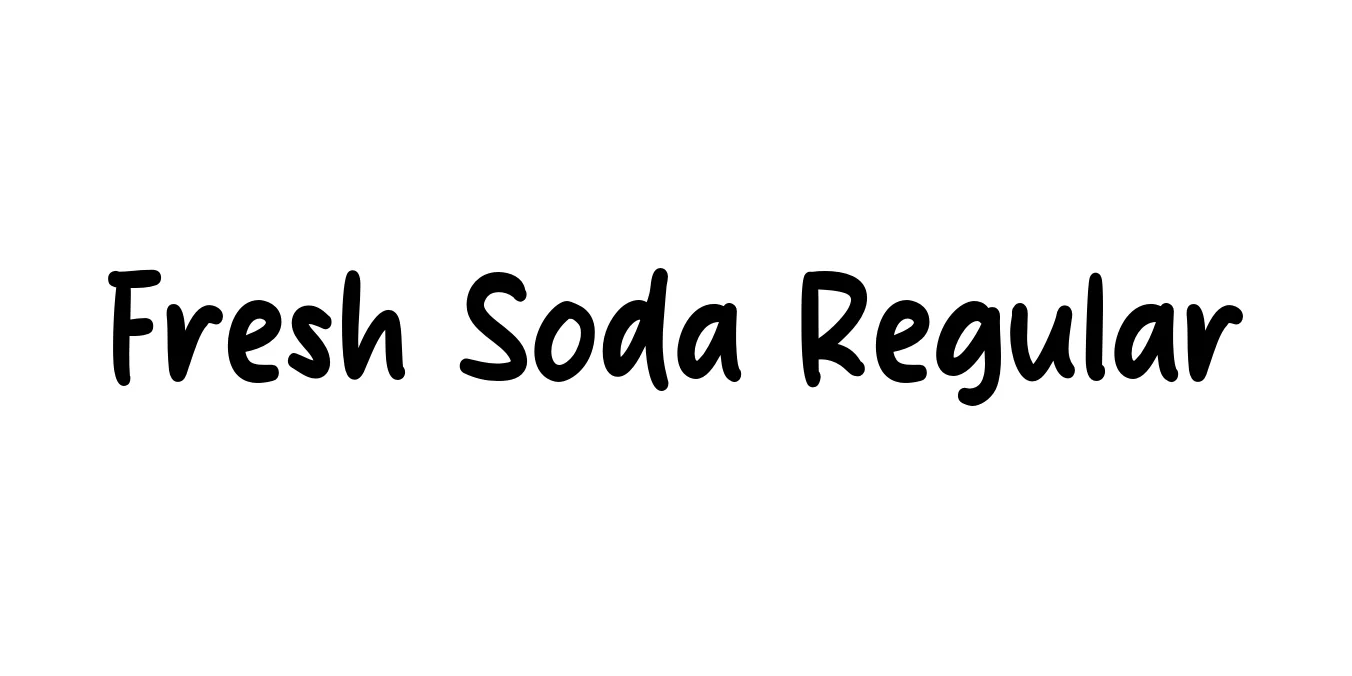
Fresh Soda Regular
Fresh Soda Regular is a vibrant, bouncy script typeface that captures the energetic spirit of mid-century soda shop signage and vintage commercial lettering. Designed with fluid, hand-drawn strokes, it features a rhythmic flow that brings a sense of joy and approachability to any design project. Its thick weights and organic curves ensure that it remains highly legible while maintaining a distinct, nostalgic personality.
This font is particularly effective for designers looking to replicate the aesthetics of the 1950s and 60s without sacrificing modern production standards. Whether used for bold headlines or intricate logotypes, Fresh Soda Regular provides a playful yet professional foundation for creative work that requires a touch of retro charm and high-impact visual appeal.
Fresh Soda Regular Best Uses
Perfect for creating energetic brand identities for food, beverage, and lifestyle companies.
Excellent for product labels that require a hand-crafted and nostalgic aesthetic.
Ideal for designing eye-catching, friendly graphics for Instagram and Pinterest.
Great for vintage-style t-shirt graphics and merchandise typography.
Useful for high-impact headlines in campaigns aiming for a classic Americana feel.